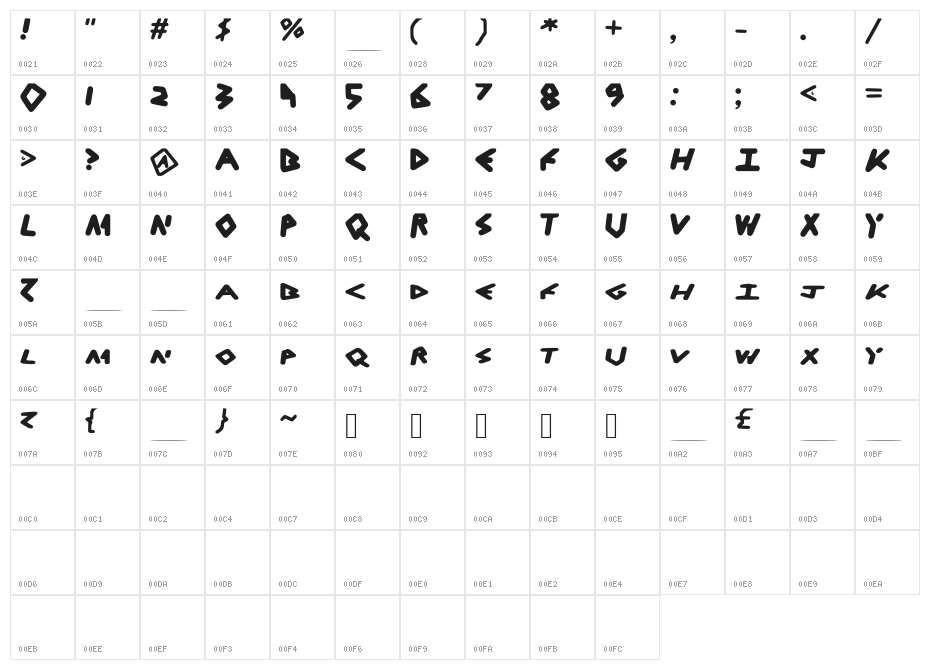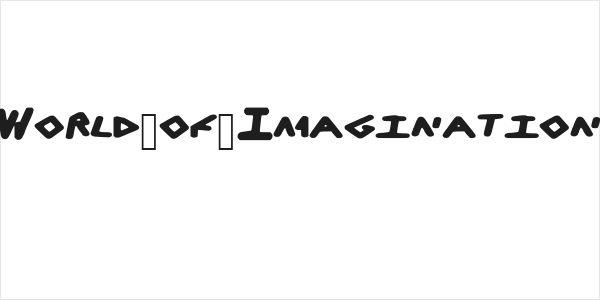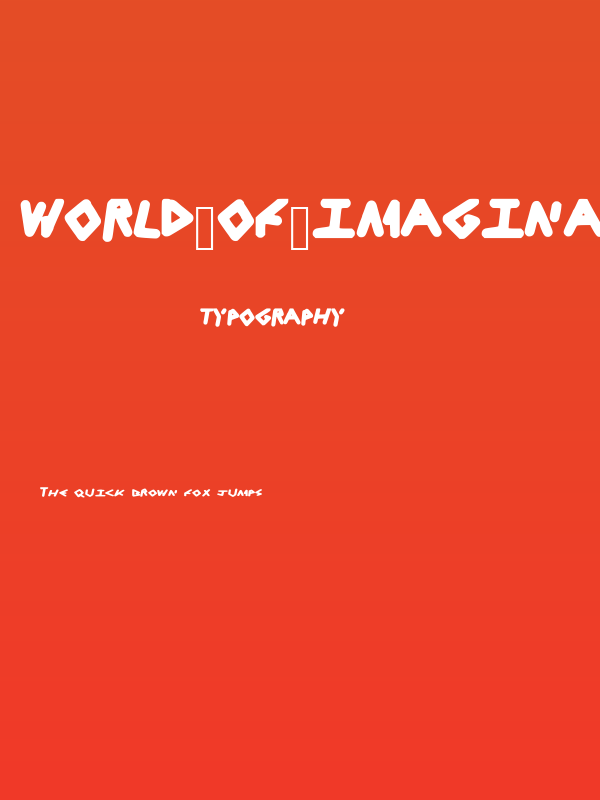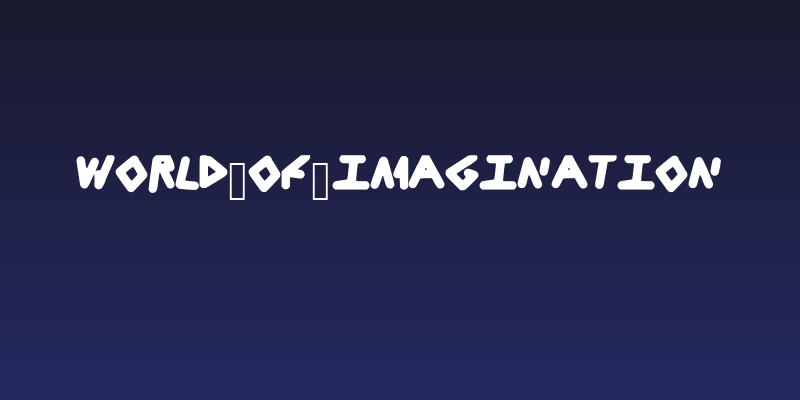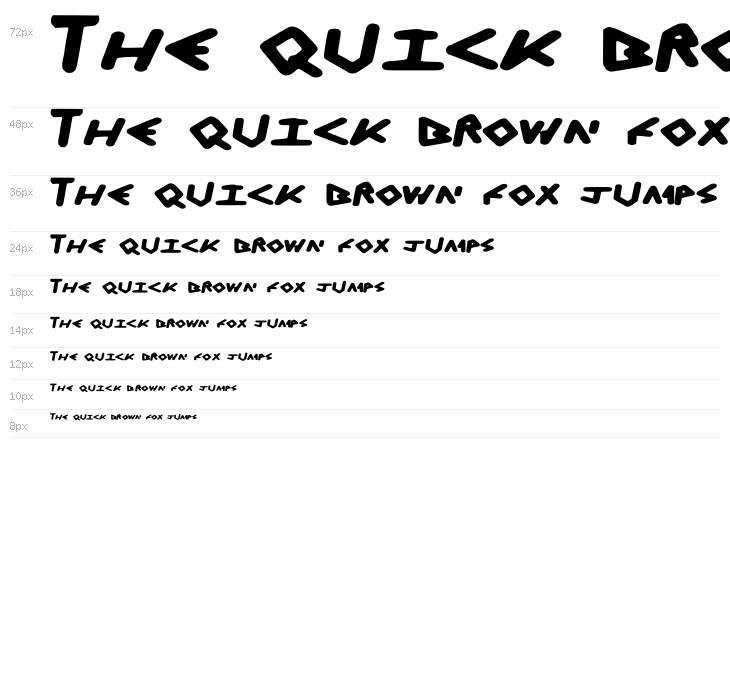
World_of_Imagination Font
World_of_Imagination Description
This font features a bold and playful design with a unique, hand-drawn aesthetic. The characters are thick and rounded, with a slightly irregular shape that adds a whimsical touch. The uppercase and lowercase letters maintain a consistent style, with angular edges and a dynamic flow. Numbers and special characters follow the same playful theme, making the font suitable for creative and informal projects. The overall appearance is eye-catching and energetic, perfect for capturing attention.
| Proposed Projects | Ideal for children's books, playful branding, creative posters, and eye-catching headlines. |